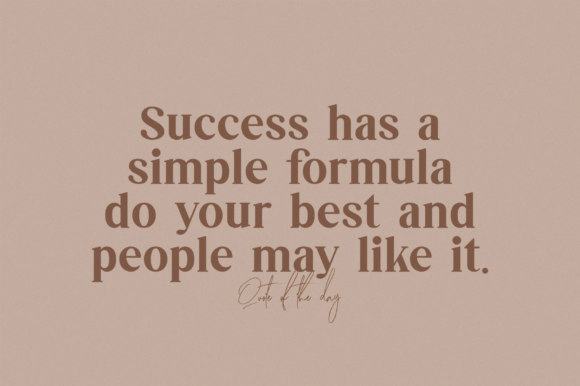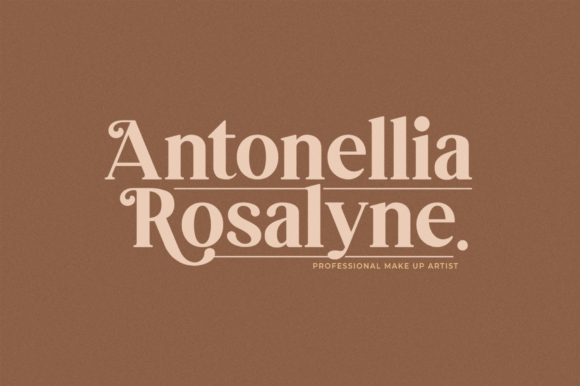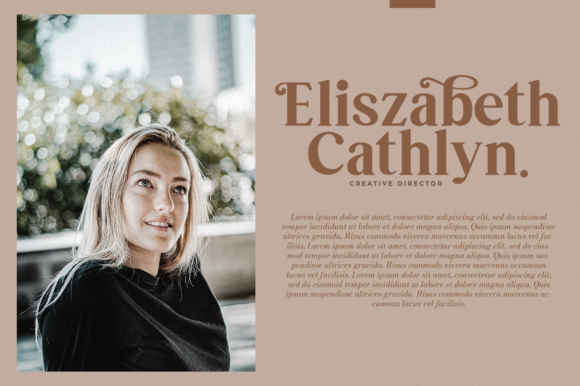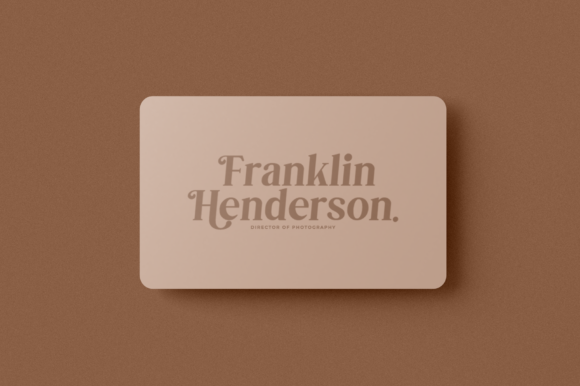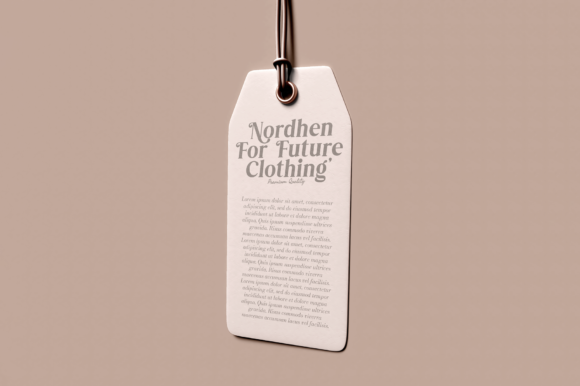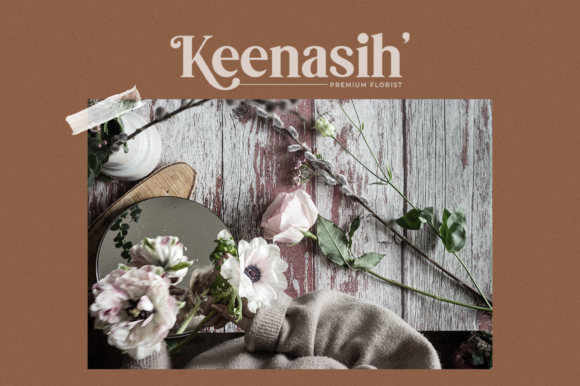
Introducing Arsene Font: Elevate Your Designs with Elegance and Sophistication
In the world of typography, fonts play a crucial role in conveying the tone and personality of a design. For designers and crafters, finding the perfect font can be a daunting task. However, if you’re looking for a font that exudes elegance and sophistication, look no further than Arsene Font. This stunning serif font is sure to become an invaluable asset to your font library, capable of elevating any creation to new heights.
What is Arsene Font?
Arsene Font is an elegant, thick lettered serif font that boasts a unique blend of classic and modern elements. Its distinctive lettering style is characterized by bold, sweeping lines and intricate details, making it perfect for a wide range of design applications. Whether you’re working on a luxury brand logo, a high-end product packaging, or a stylish website, Arsene Font is sure to make a lasting impression.
Key Features of Arsene Font
- Elegant and Sophisticated: Arsene Font’s classic serif design and bold lettering style evoke a sense of luxury and refinement, making it perfect for high-end designs.
- Versatile: This font is incredibly versatile and can be used for a wide range of design applications, from logos and branding to packaging, websites, and more.
- Highly Legible: Despite its bold and intricate design, Arsene Font remains highly legible, even at smaller font sizes.
- Unique and Distinctive: Arsene Font’s unique lettering style sets it apart from other serif fonts, making it an excellent choice for designers looking to create a lasting impression.
Why Choose Arsene Font?
With so many fonts available, it’s essential to choose one that meets your design needs and elevates your creations. Here are just a few reasons why Arsene Font stands out from the crowd:
- Adds Luxury and Sophistication: Arsene Font’s elegant design instantly adds a touch of luxury and sophistication to any design, making it perfect for high-end brands and products.
- Enhances Brand Identity: With its unique and distinctive lettering style, Arsene Font can help establish a strong brand identity that sets you apart from the competition.
- Easy to Use: Arsene Font is incredibly easy to use and can be seamlessly integrated into your design workflow.
- High-Quality: As a professionally designed font, Arsene Font is of exceptionally high quality, ensuring that your designs look crisp and polished.
How to Use Arsene Font in Your Designs
Arsene Font is an incredibly versatile font that can be used in a wide range of design applications. Here are just a few ideas to get you started:
- Logo Design: Use Arsene Font to create a stunning logo that exudes elegance and sophistication.
- Branding and Packaging: Elevate your brand identity with Arsene Font, perfect for luxury brands, product packaging, and more.
- Web Design: Add a touch of luxury to your website with Arsene Font, perfect for headers, titles, and other design elements.
- Print Design: Use Arsene Font in your print designs, such as brochures, flyers, and business cards, to add a touch of sophistication.
In conclusion, Arsene Font is an exceptional addition to any designer’s font library. Its elegant and sophisticated design, versatility, and high legibility make it an invaluable asset for any design project. Whether you’re a seasoned designer or just starting out, Arsene Font is sure to elevate your creations and help you establish a strong brand identity. So why wait? Add Arsene Font to your collection today and experience the power of elegant typography.